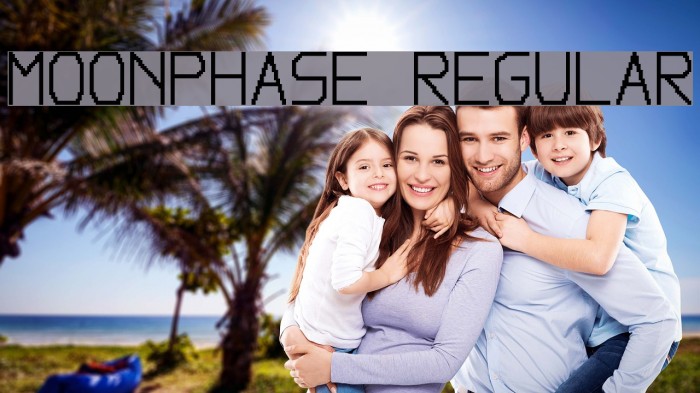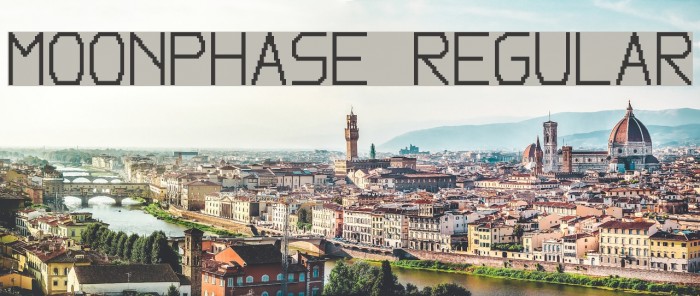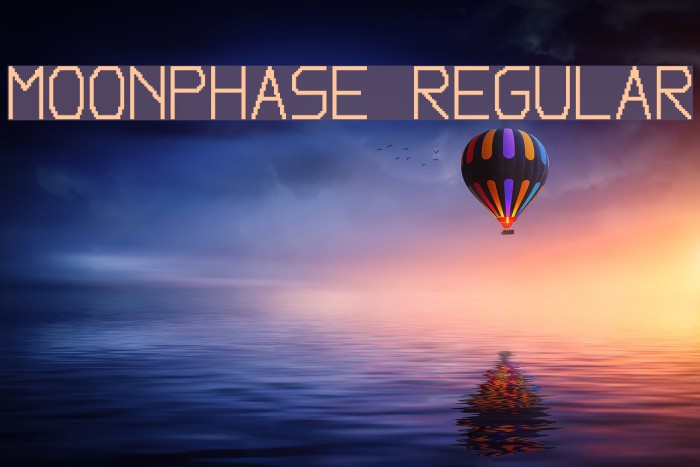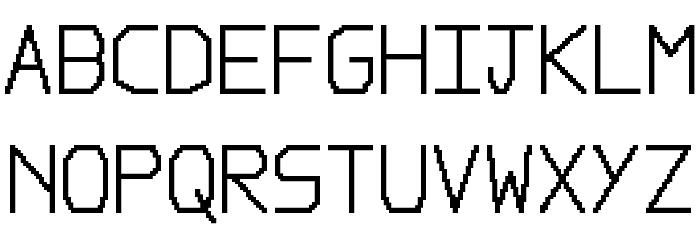
Moonphase Regular Font
Moonphase Regular Description
This font features a pixelated, geometric design that evokes a retro, digital aesthetic. The characters are constructed with uniform line thickness, creating a consistent and cohesive appearance. The uppercase and lowercase letters maintain a similar structure, enhancing readability while preserving the unique style. The numerals and special characters are designed to match the overall geometric theme, making this font suitable for projects that require a modern, tech-inspired look. The font's simplicity and clarity make it versatile for various design applications.
A pixelated, geometric font with a retro digital aesthetic from Uncategorized fonts.
- Proposed Projects: Ideal for video game design, tech-themed posters, digital art, and retro-style branding.
- Use Case: Logos, Headlines, Digital displays